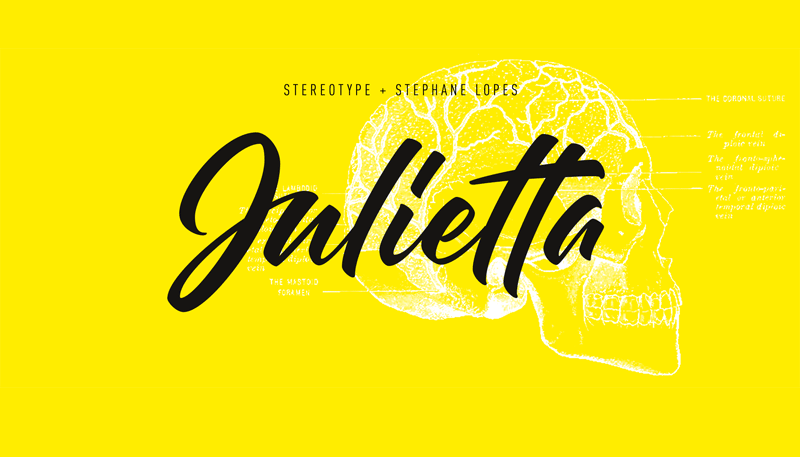
Julietta Script Font
Introducing Julietta Script Font! Julietta Font designed and shared by StereoType. Julietta is a cool script font made from the lettering work of Stéphane Lopes. The full commercial version includes a huge set of 70 alternates, contextual ligatures and underlining.